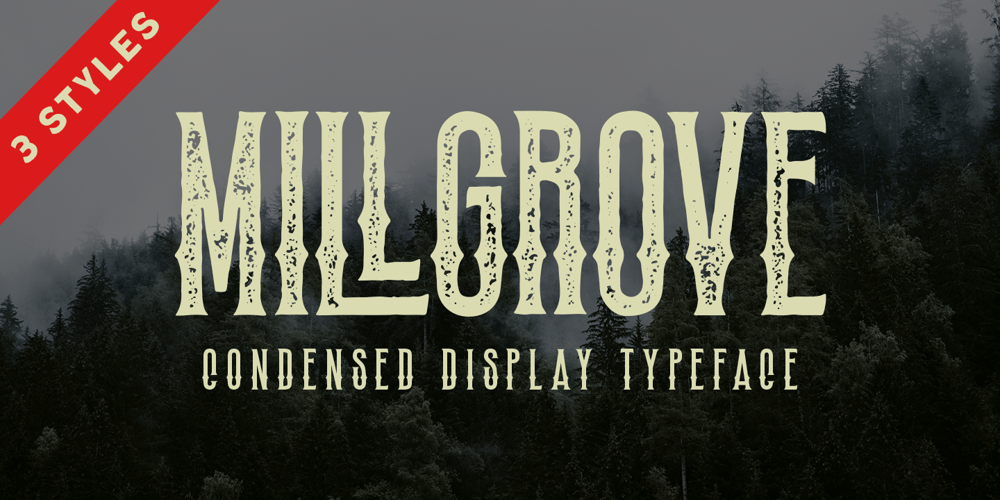
Millgrove Font Family was designed by Hendry Juanda and published by Letterhend. Millgrove contains 3 styles and family package options. Introducing, Millgrove – A condensed display typeface. The condensed style make this font looks great and standout for tittle, headline, logo, etc. There are three styles, regular, edge, stamp. Perfectly to be applied to the other various formal forms such as invitations, labels, logos, magazines, books, greeting / wedding cards, packaging, fashion, make up, stationery, novels, labels or any type of advertising purpose.Features :- uppercase & lowercase- numbers and punctuation- multilingual- alternates & ligatures- PUA encodedWe highly recommend using a program that supports OpenType features and Glyphs panels like many of Adobe apps and Corel Draw, so you can see and access all Glyph variations.